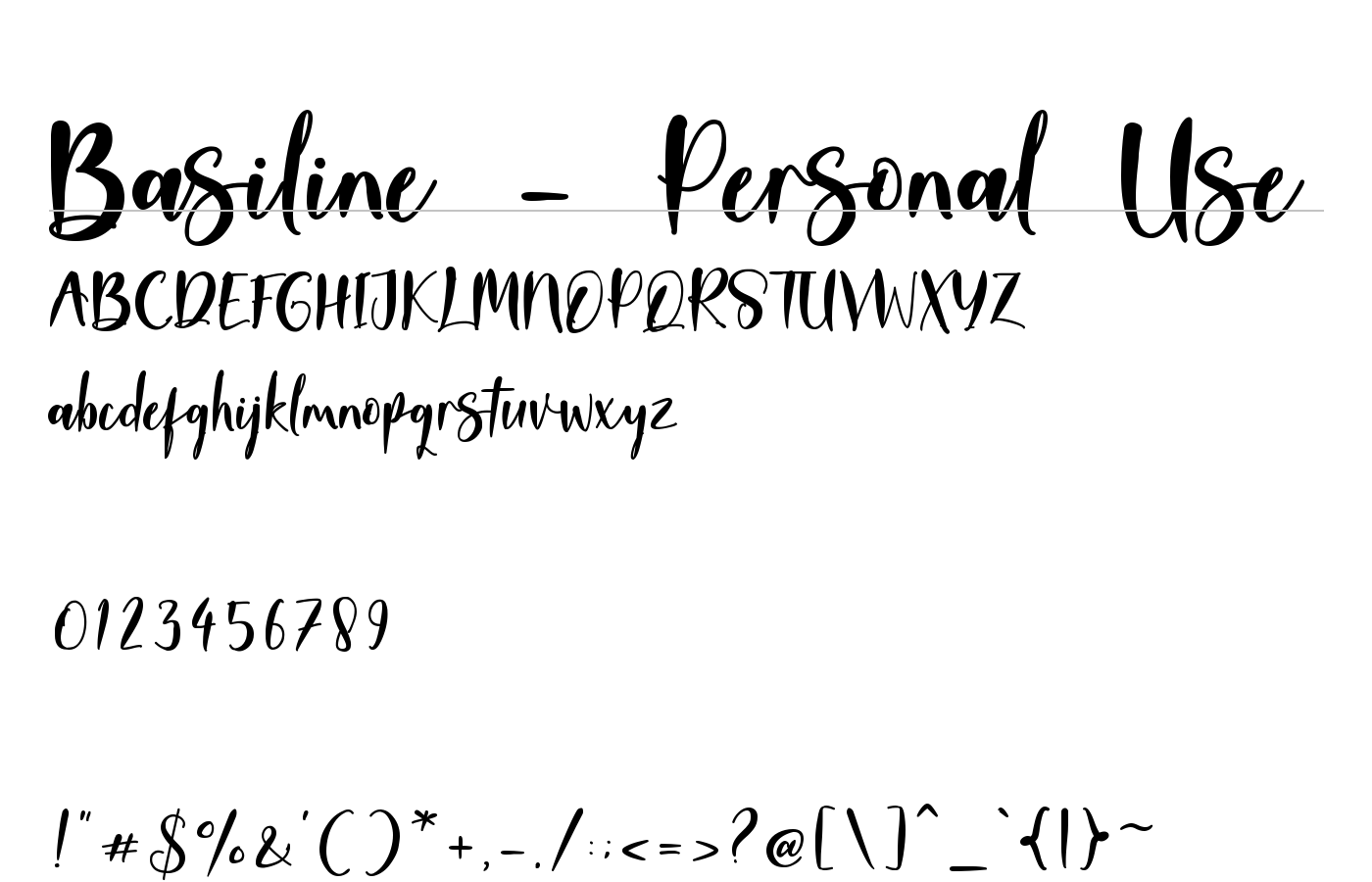
Basiline is a charming handwritten script font with a lively and playful character, featuring smooth, flowing strokes and moderate contrast. Its casual, brush-like style, combined with a slightly tall x-height and unique letterforms, makes it ideal for creative projects seeking a personal, friendly touch. Perfect for invitations, branding, and social media, Basiline brings warmth and personality to any design without sacrificing readability.
Basiline - Personal Use Font
About Basiline - Personal Use Font